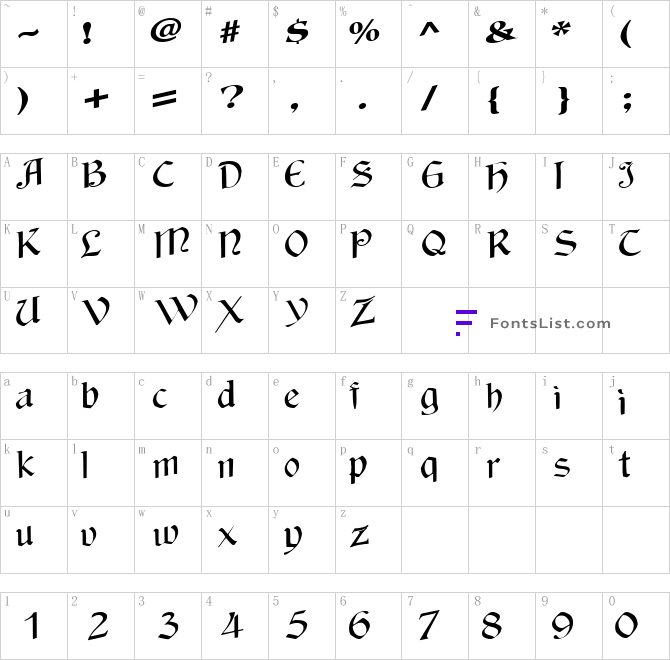
Against-Regular-ttnorm.ttf is a very beautiful artistic font, Against-Regular-ttnorm.ttf is widely used in the design and printing of various books and pictures,Against-Regular-ttnorm.ttf has a strong visual impact,Against-Regular-ttnorm.ttf is a commonly used font in newspapers, magazines and books, and is used in posters, e-commerce Poster design, store design, logo design, font design and other fields.Against-Regular-ttnorm.